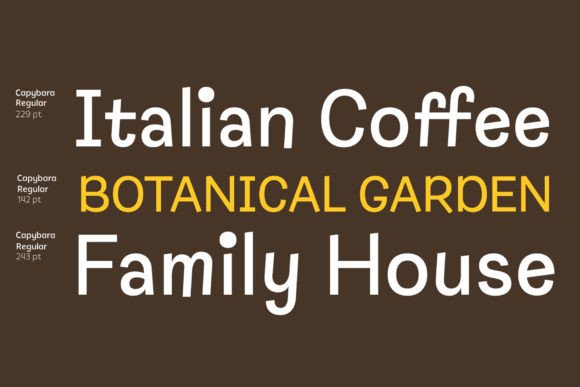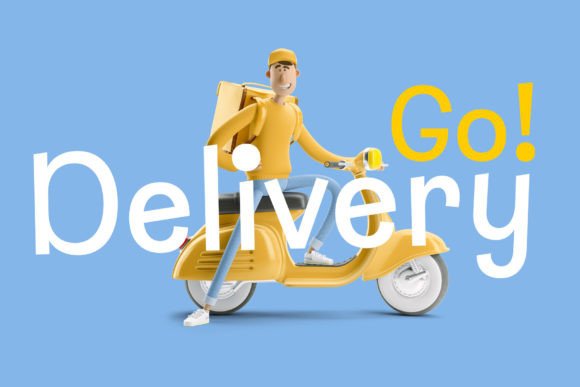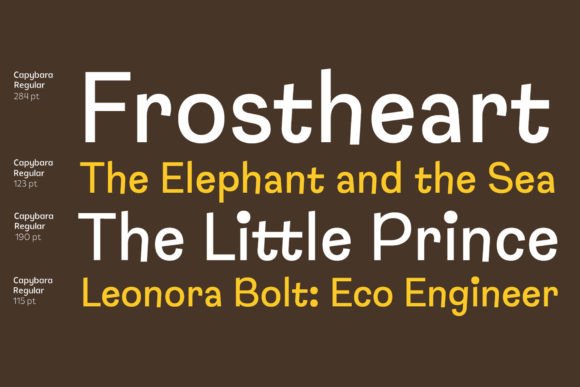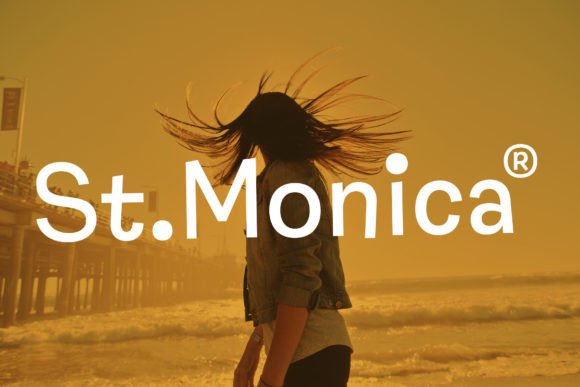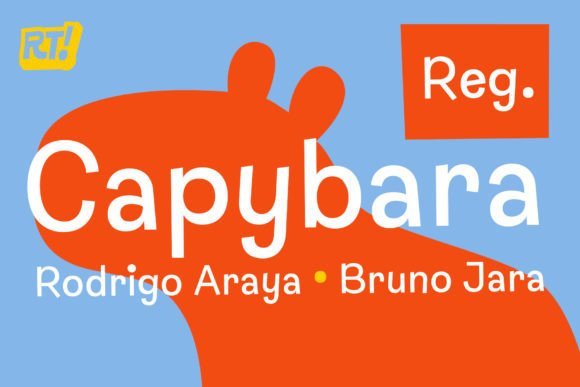
Unleashing Creativity with Capybara Font
Do you remember the excitement of creating your first logo or title for a school project? The rush of combining colors, shapes, and typography to convey a message or evoke an emotion? For designers, those moments of creative expression are what drive us to keep pushing the boundaries of innovation. And that’s exactly what the Capybara Font is all about – capturing the essence of youthful energy and playfulness in a beautiful, versatile typeface.
With its fun and lively style, Capybara Font is the perfect addition to any project aimed at children or young audiences. Its unique features, such as the Cyrillic alphabet and special ligatures, make it a valuable tool for designers looking to add a creative twist to their work.
Whether you’re designing a children’s book, a logo for a kids’ brand, or a title for a youth-focused project, the Capybara Font is sure to bring a smile to your face and inspire your creativity.
Capybara Font Key Features
- Font Family: Capybara Font is a sans-serif font family designed for digital use, making it suitable for a wide range of applications.
- Character Set: The font family includes a comprehensive character set, covering Latin, Cyrillic, and Greek alphabets, as well as a range of punctuation and symbol characters.
- Unique Characteristics: The Capybara Font features a clean, modern design with a distinctive x-height and a range of weights, from Light to Extra Bold, allowing for a high degree of customization.
Capybara Font Review
As a designer, I’ve had the chance to play around with the Capybara Font, and I must say it’s an interesting addition to the world of typography. ✨ One of the things that works well is its playful and quirky feel. The font’s rounded edges and irregularities give it a friendly, approachable vibe that’s perfect for designs where you want to convey a sense of whimsy or lightheartedness.
- ✨ Unique and quirky feel that sets it apart from more traditional fonts.
- ✨ Works well for headings and titles where you want to add some personality.
- ✨ Supports a range of languages, making it a great option for international designs.
However, I do have some concerns about the font’s limitations. ⚠️ The most notable one is its lack of legibility at smaller font sizes. While it’s perfect for headings, it can become difficult to read when used for body text. Additionally, the font’s irregularities can make it challenging to pair with other fonts.
Overall, I’d say the Capybara Font is a fun and creative option for designers who want to add some personality to their designs. While it may not be suitable for all projects, it’s definitely worth considering for those where a playful, whimsical feel is desired.
The Capybara font is perfect for:
- Designing children’s books or educational materials.
- Creating playful and whimsical graphics.
- Adding a touch of personality to your branding or marketing materials.